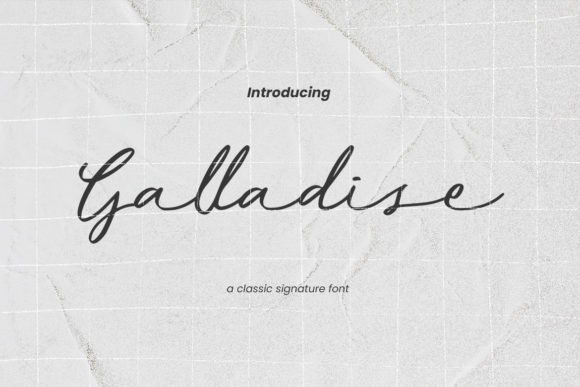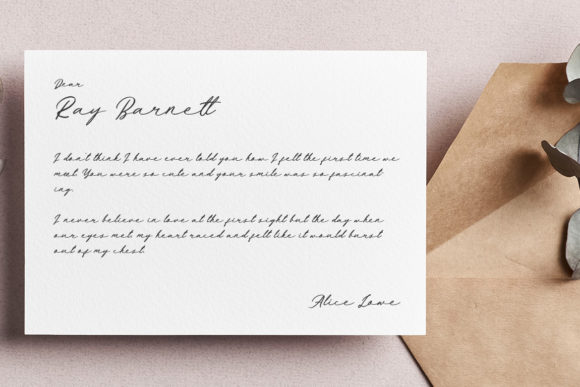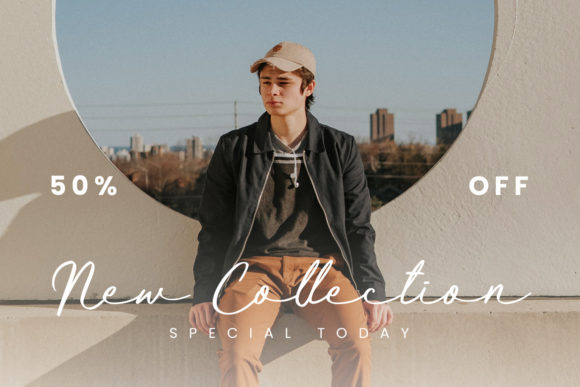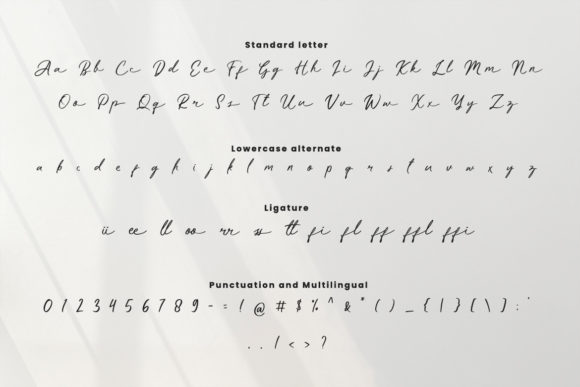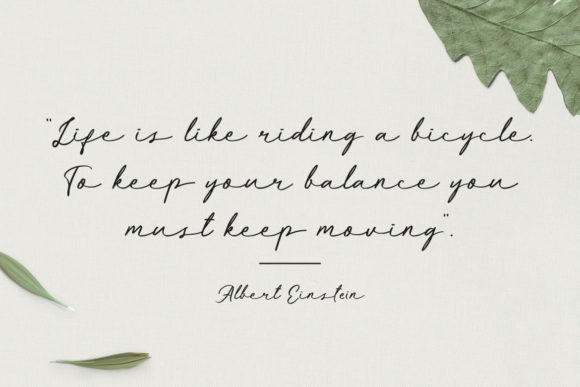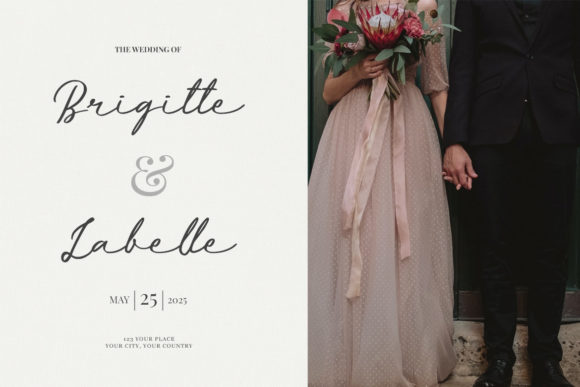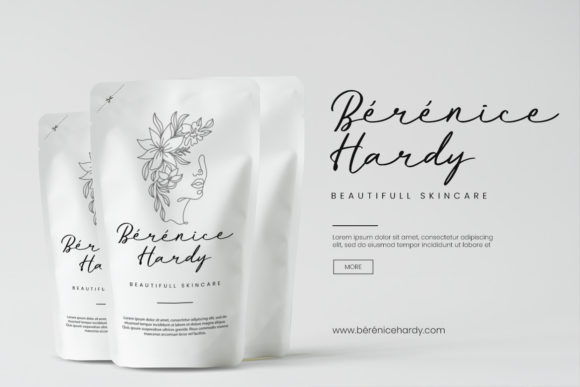
The Perfect Signature Font: Galladise Font
There’s something magical about writing a love letter or creating a wedding invitation – the thought, the love, the care that goes into every word. As a designer, you know how crucial it is to choose the right font to convey your emotions and make your message truly special. That’s where the Galladise Font comes in – a classic signature font that exudes authenticity and elegance.
This beautifully crafted font is designed to leave a lasting impression, with subtle texture imperfections that make it look like it was written by hand. Whether you’re a professional designer or a creative enthusiast, the Galladise Font is a valuable addition to your toolkit. Its unique charm and legibility make it perfect for a wide range of projects, from romantic love letters to elegant wedding invitations.
- Font Family: Galladise
- Unique Characteristics: Galladise features a unique blend of modern and vintage elements, with a distinctive flair and elegant feel
Galladise Font Review
Overall, I think the Galladise font has some great qualities that make it a solid choice for designers, but it’s not without its limitations.
- ✨ Elegant and refined aesthetic: Galladise has a sophisticated look that would be perfect for luxury brands or high-end designs.
- ✨ Versatile: This font can be used in a variety of contexts, from headings to body text, and even for logos and graphics.
- ✨ Well-suited for long text: Galladise has a clear, easy-to-read design that makes it ideal for lengthy texts or articles.
- ⚠️ Limited expressiveness: While Galladise is elegant, it may lack the emotional impact or personality that some designers crave.
- ⚠️ Not ideal for bold statements: The font’s refined nature makes it less suitable for designs that require a bold or attention-grabbing look.
- ⚠️ May not be suitable for digital use: Galladise’s design may not translate as well to digital screens, potentially resulting in a less-than-ideal reading experience.
In conclusion, Galladise is a solid choice for designers who value elegance and refinement. However, it may not be the best fit for projects that require a bolder or more expressive look.
Tips for Getting the Most Out of Galladise Font
Use Galladise Font for headings and titles to add a touch of elegance and sophistication to your designs.
Pair it with a clean and simple font for body text to create a visually appealing contrast.
Galladise Font is ideal for:
– Luxury brand designs
– High-end marketing materials
– Elegant and sophisticated blog posts and articles
Alternatives to Galladise Font
Circular Std
Circular Std is a sans-serif font that is highly legible and versatile. It is ideal for use in digital products, signage, and publications where clarity is crucial. When to use: Digital products, signage, publications.
Comparison to Galladise Font: Circular Std has a more geometric and modern feel compared to Galladise Font’s elegant and refined look. While Galladise Font is more suitable for luxury and high-end branding, Circular Std is better suited for everyday use.
Akkurat
Akkurat is a serif font that is highly legible and sophisticated. It is ideal for use in publications, branding, and advertising where a touch of elegance is required. When to use: Publications, branding, advertising.
Comparison to Galladise Font: Akkurat has a more classic and traditional feel compared to Galladise Font’s modern and elegant look. While Galladise Font is more suitable for modern and trendy branding, Akkurat is better suited for traditional and sophisticated branding.
Playfair Display is an elegant and luxurious serif font that is ideal for use in high-end branding, advertising, and publications where a touch of sophistication is required. When to use: High-end branding, advertising, publications.